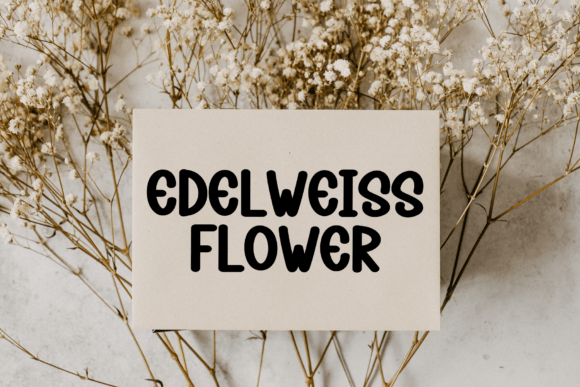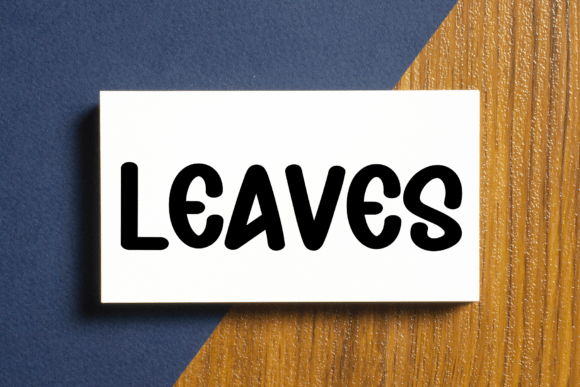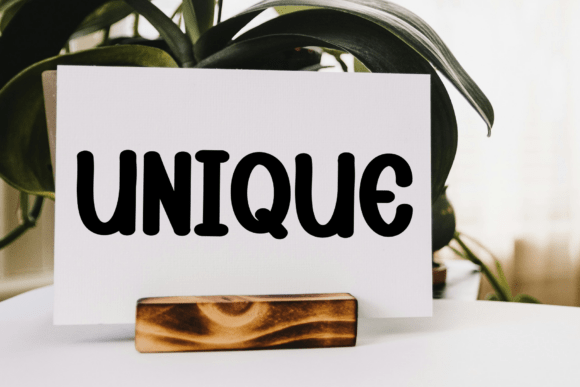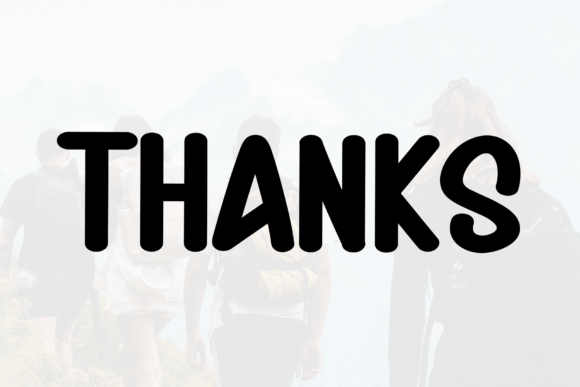
Introduction to Christmas Hiking Font
Christmas Hiking is a brand new, bold display font characterized by its strong, rounded, and wonderfully friendly letterforms that project a vibe of cheerful, casual adventure.
This typeface features an exceptionally thick, monoline weight with soft, completely circular terminals and curves, making it highly impactful and clear even at a glance The uniqueness of this style lies in its chunky yet simple construction , offering a contemporary, youthful feel that is both assertive and irresistibly fun, perfect for playfully grabbing attention.
Key Features of Christmas Hiking Font